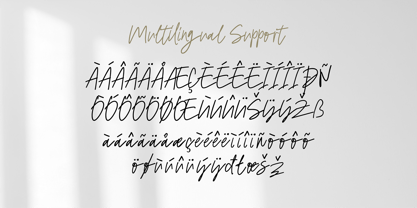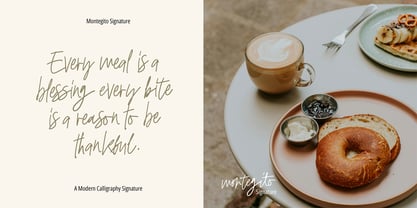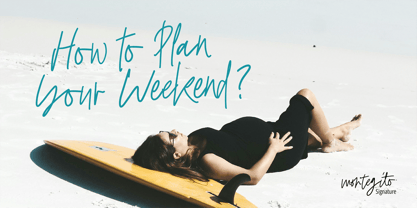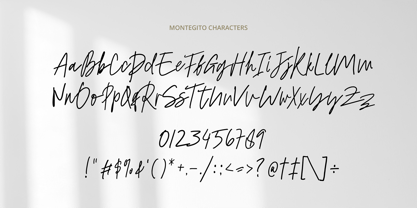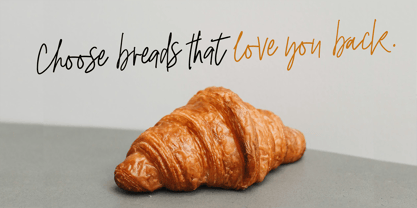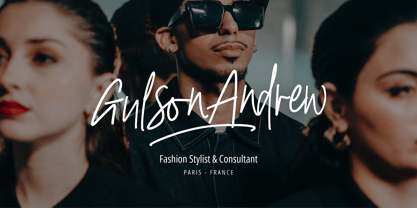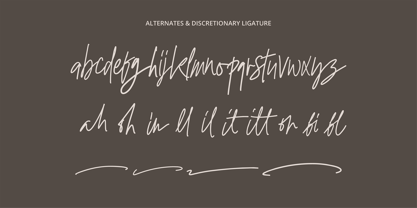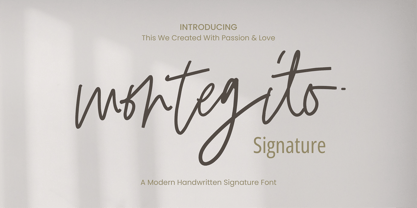
Montegito Signature
von Mercurial
Die Schriftfamilie Montegito Signature wurde von Muksalmina entworfen und von Mercurial veröffentlicht. Montegito Signature enthält 1 Stile. Mehr über diese Familie
Hello everyone, I would like to introduce Montegito Signature a modern and stylish monoline handwritten font.
Montegito Signature can be used for a variety of projects such as branding, labels, photography, invitations, stationery, wedding designs, social media posts, advertising, product packaging, product design, and more.
Designer: Muksalmina
Foundry: Mercurial